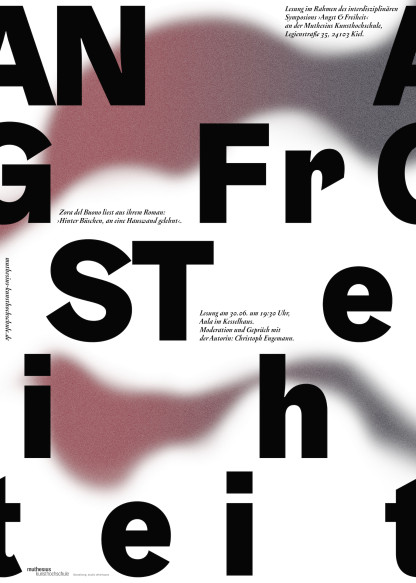
Angst & Freiheit
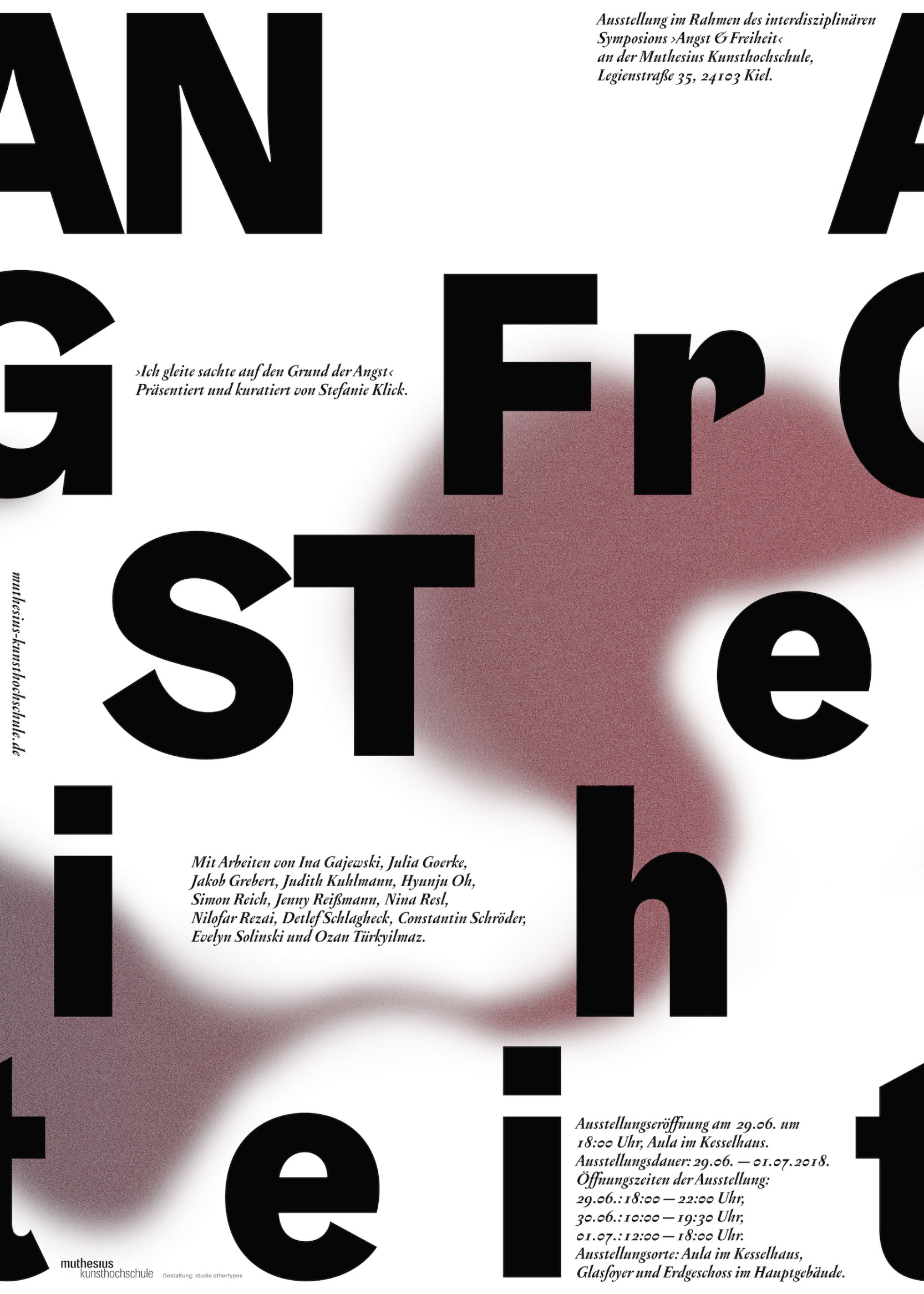
Poster series for Angst und Freiheit (Fear and Freedom) — a symposium at the Muthesius University of Fine Arts in Kiel. The dark color gradient extends on the entire series and contributes to the notion of discomfort. The typographic design emits a feeling of peculiarity and accessibility at the same time.
Typeface: Gräbenabch by Camelot Typefaces &
Pentagramme OSF by Storm Type